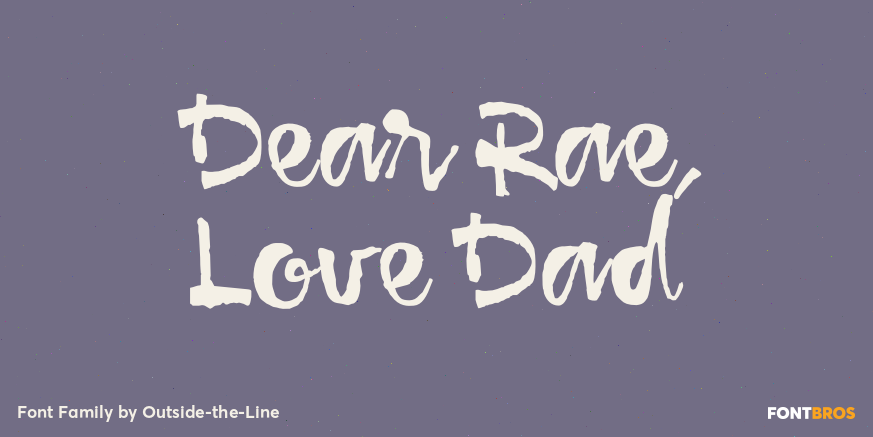
Dear Rae, Love Dad
About Dear Rae, Love Dad
Dear Rae, Love Dad is a modern calligraphy font drawn by hand using ink and a folded nib dip pen on rough watercolour paper. Upright, dramatic, and personal, it is named Dear Rae, Love Dad because who wouldn't like to get a letter signed, "Love…